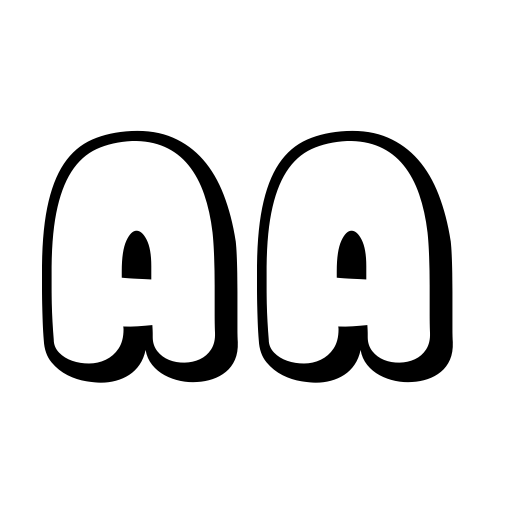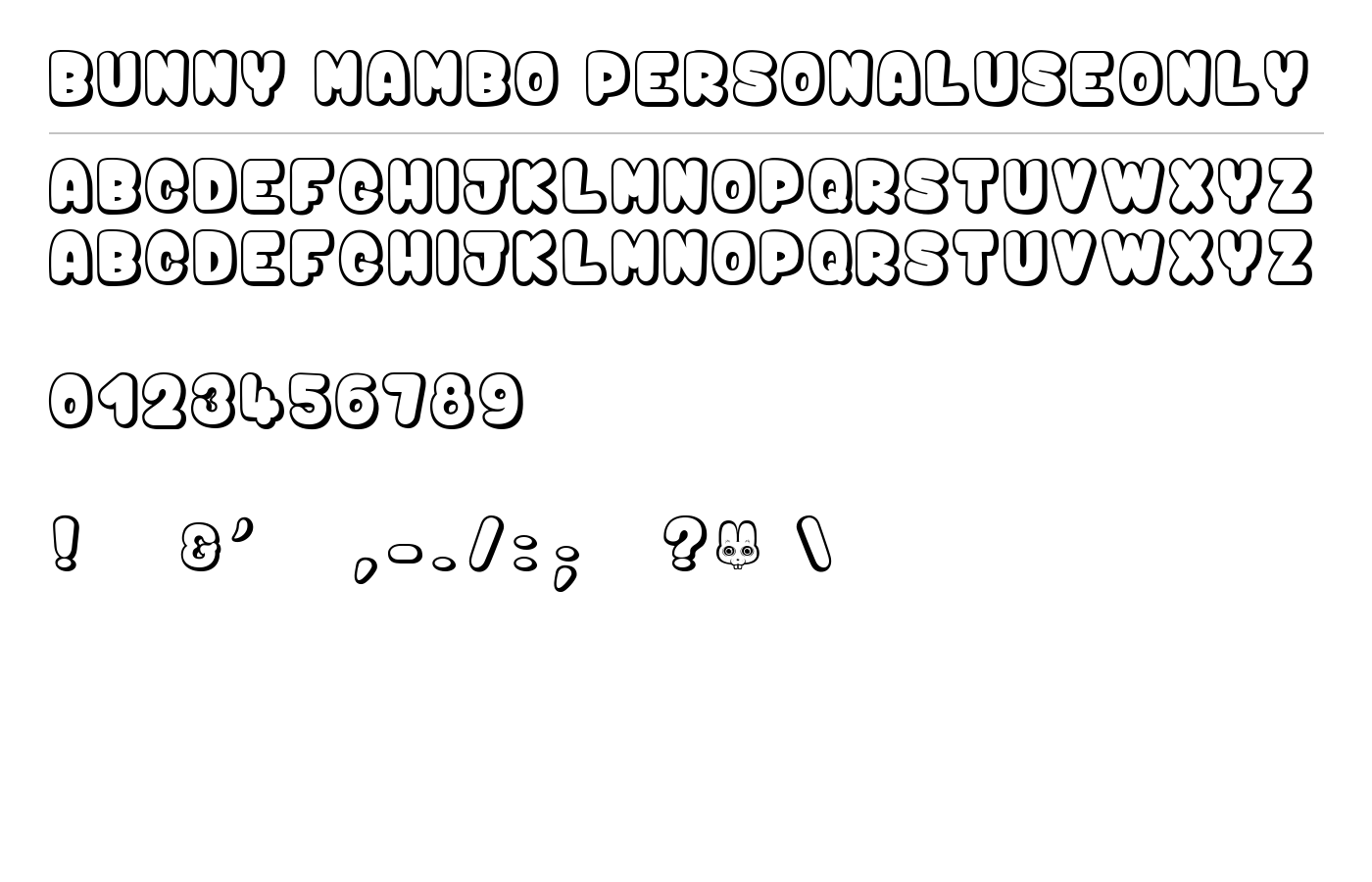
Bunny Mambo_PersonalUseOnly is a playful, rounded sans serif font with a bold, bubbly style that adds a fun and friendly vibe to any design. Its thick, soft edges and large x-height make it highly readable and perfect for eye-catching headlines, packaging, or children’s materials where a joyful and approachable feel is desired. This font works best in casual, creative contexts where a distinctive, whimsical personality can shine.